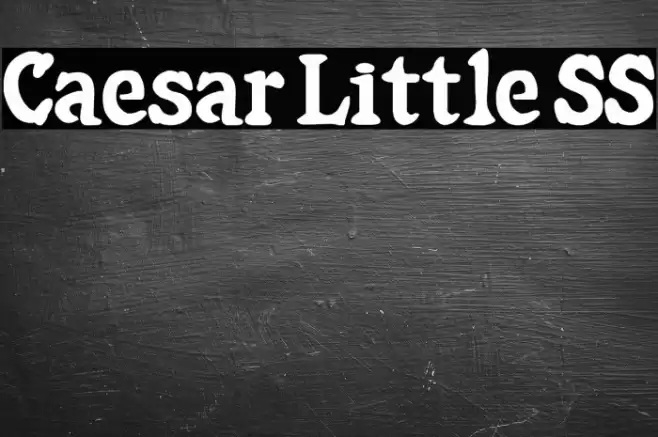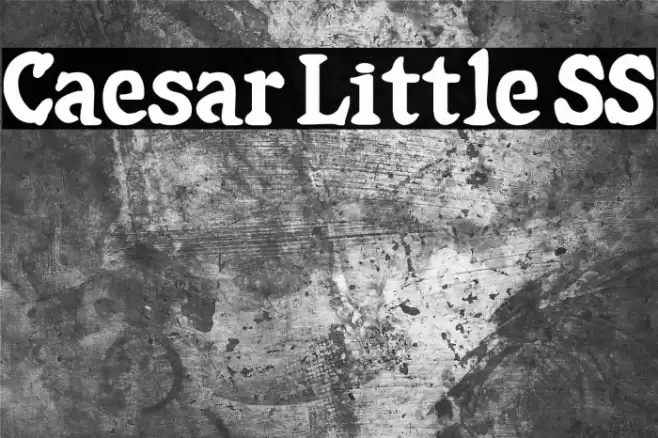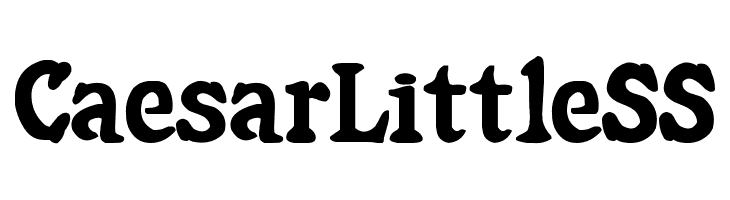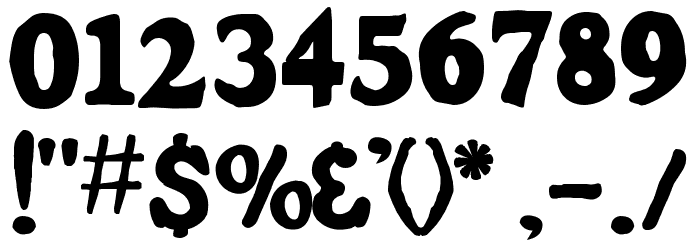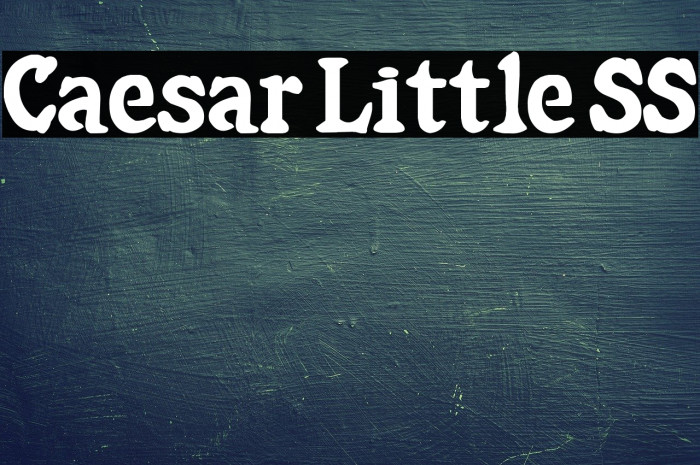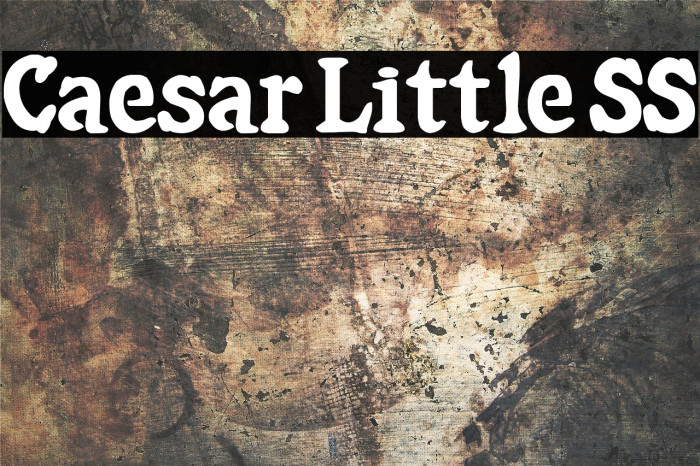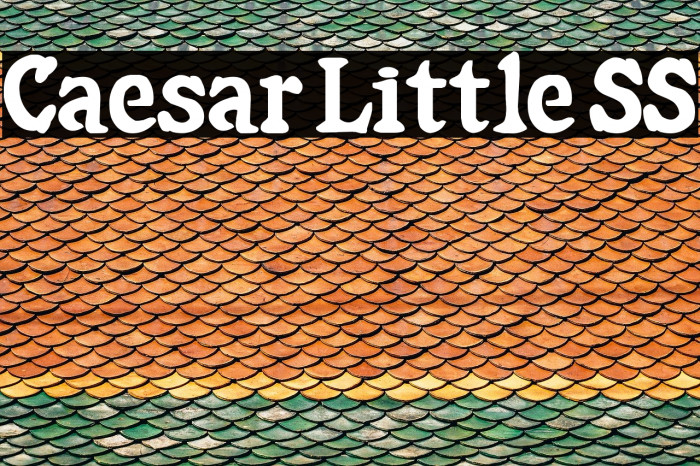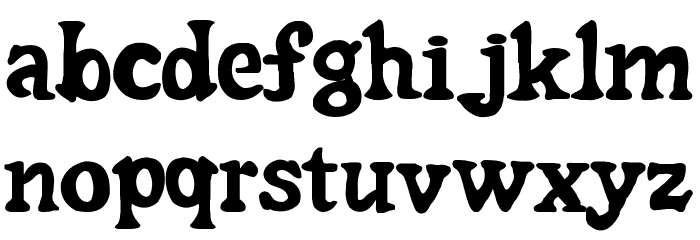
Caesar Little SS Font
Caesar Little SS Description
This font features a bold and playful design with a distinct hand-drawn appearance. The characters have a whimsical, slightly irregular shape, giving them a lively and dynamic feel. The uppercase letters are robust and commanding, while the lowercase letters maintain a consistent style with a touch of quirkiness. The numerals are bold and easily readable, matching the overall playful aesthetic. The special characters are creatively designed, adding to the font's unique charm. This font is perfect for projects that require a fun and engaging visual element.
A bold, playful font with a hand-drawn, whimsical style from Uncategorized fonts.
- Font: Caesar Little SS
- Proposed Projects: Ideal for children's books, playful branding, creative posters, and eye-catching headlines.
- Overall Style: Playful, Hand-drawn